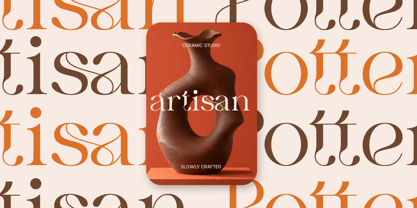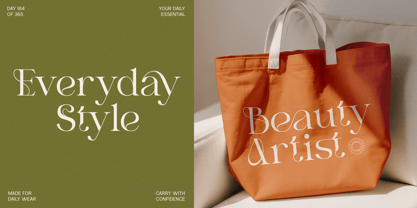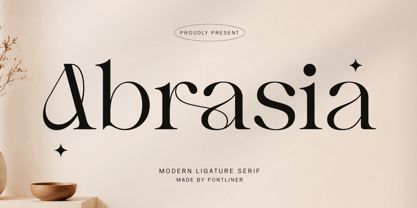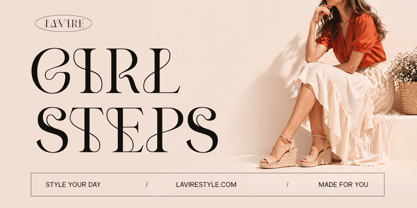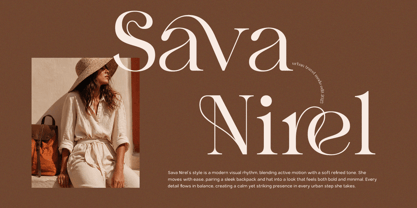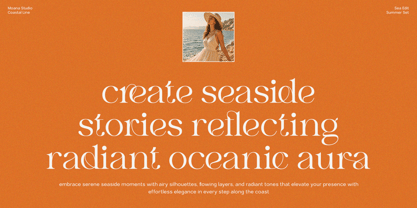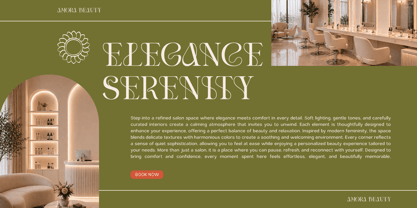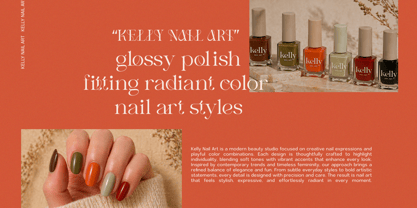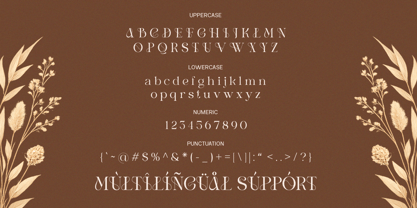
FL Abrasia
La familia tipográfica FL Abrasia fue diseñada por Ghina Luthfiarieska y publicada por Font Liner. FL Abrasia contiene 2 estilos y opciones de paquete familiar. Más información sobre esta familia
Abrasia is a Ligature serif font designed to bring elegance, fluidity, and artistic expression into contemporary typography. Its distinctive letterforms feature graceful curves and refined ligatures that create a seamless and sophisticated visual rhythm. The combination of classic serif structure and modern styling makes Abrasia stand out as a unique and memorable typeface.
Perfect for high-end branding, editorial layouts, fashion campaigns, and luxury packaging, Abrasia delivers a polished and premium aesthetic. Its expressive ligatures allow designers to craft visually rich typography with a custom-made feel, making it ideal for logos, magazines, beauty brands, and social media visuals that demand elegance and personality.
With carefully crafted details and balanced proportions, Abrasia ensures readability while maintaining its decorative charm. Whether used for headlines or refined branding projects, this font offers versatility and style, making it a valuable asset for designers seeking a modern serif with a luxurious touch.
• Regular and Italic
• Stylistic Ligatures
• Stylistic Alternates
• Uppercase and Lowercase
• Number, SYmbol, and Punctuation
• Multi Language Support